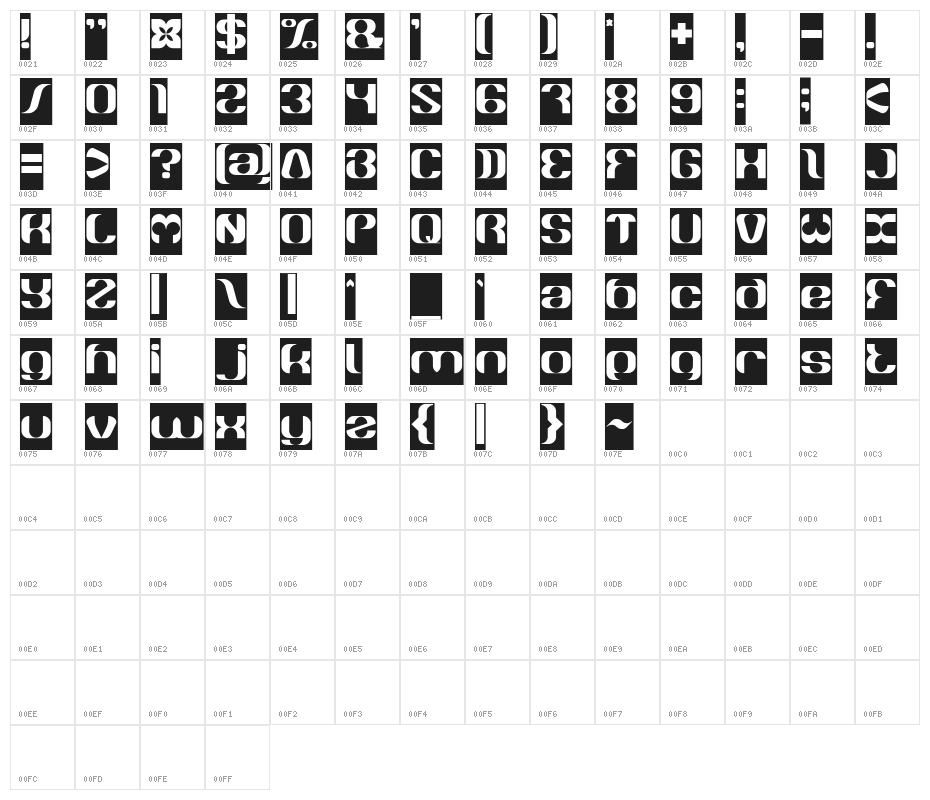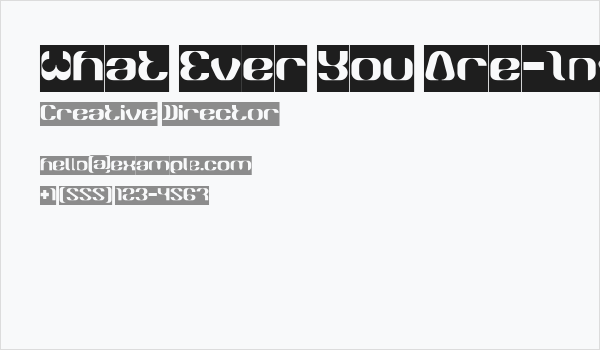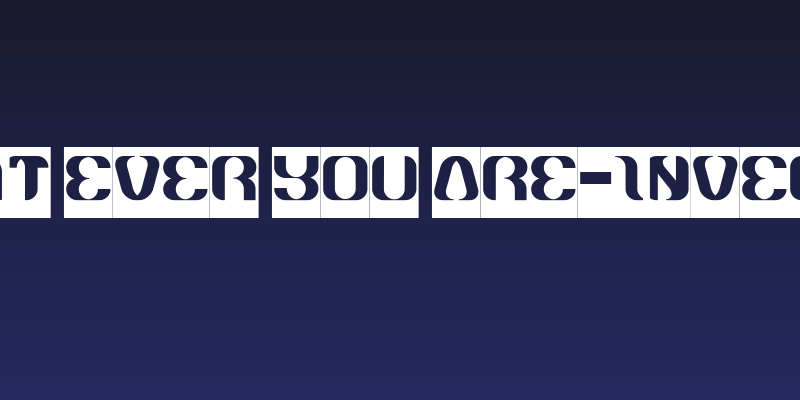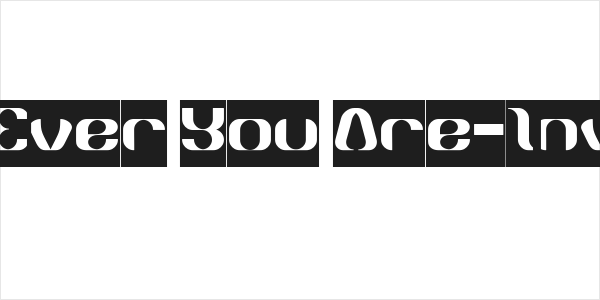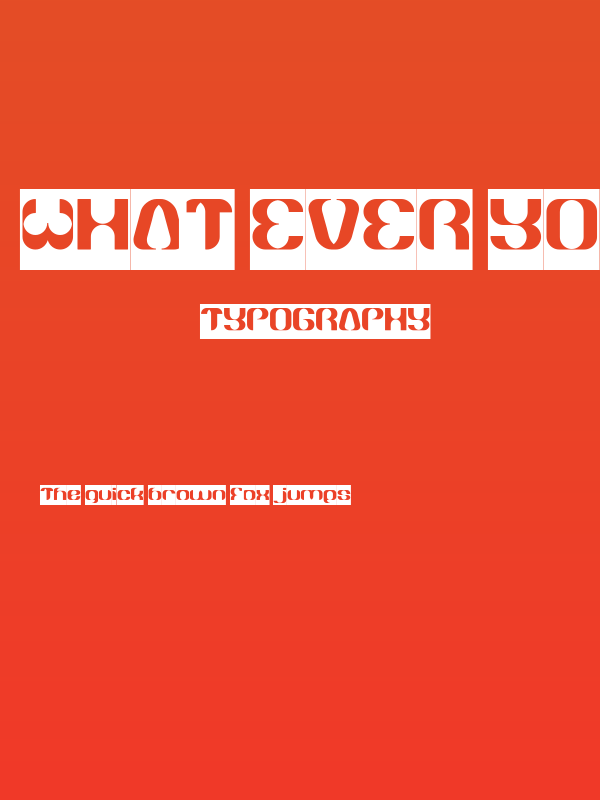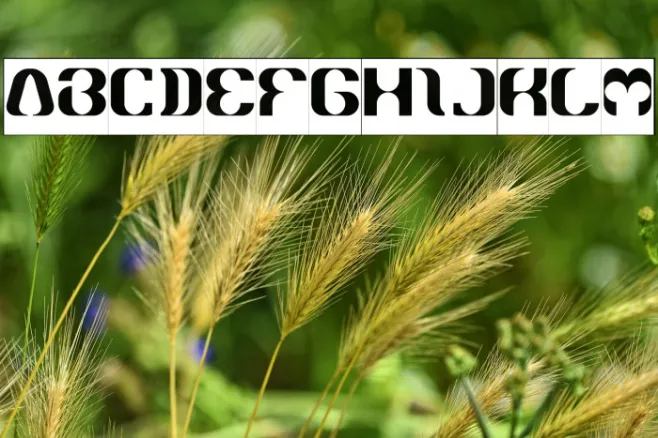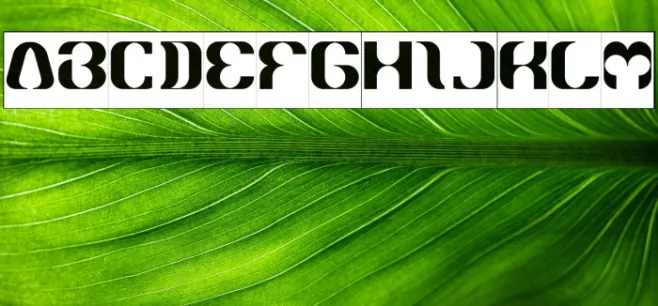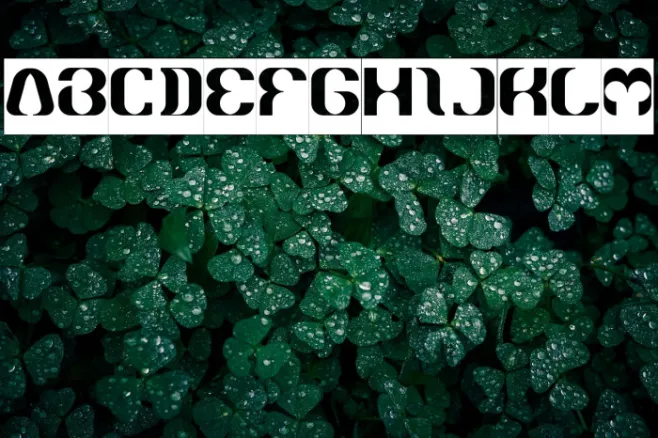
What Ever You Are-Inverse Font
What Ever You Are-Inverse Description
This font features a bold and striking design with high contrast between thick and thin strokes, creating a dramatic and eye-catching appearance. The characters are uniquely styled with a modern twist, incorporating sharp angles and curves that give it a futuristic feel. The uppercase and lowercase letters maintain a consistent style, while the numbers and special characters complement the overall aesthetic. The font's design is ideal for making a strong visual impact, suitable for various creative applications.
| Overall Style | Modern, Futuristic |
| Proposed Projects | Ideal for branding, posters, album covers, and any project requiring a bold statement. |